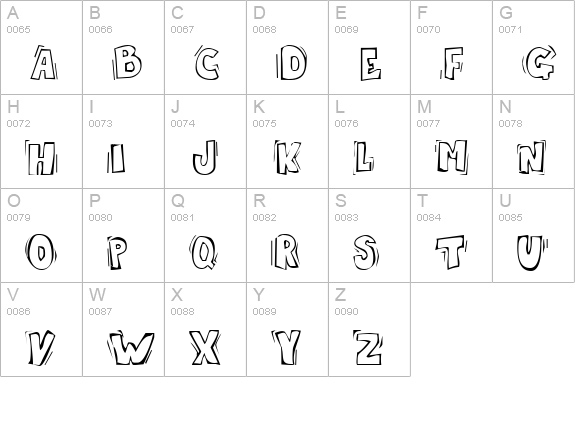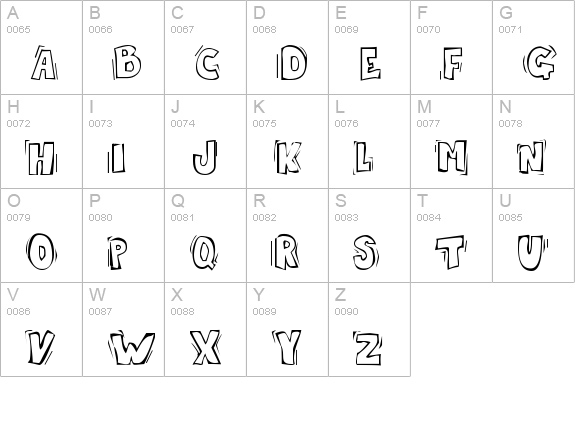
Skrotfont Font Details
Skrotfont is a magnificent font that exudes elegance and creativity. With its unique and eye-catching design, this font is perfect for any project that requires a touch of sophistication. From logos and branding to invitations and headlines, Skrotfont adds a distinct charm that captivates the audience. But what sets Skrotfont apart from other fonts is its availability. Yes, you heard it right! Skrotfont is absolutely free to download at FontsMarket.com. This means that you can enjoy the beauty and versatility of this font without spending a penny. Whether you are a professional designer or simply an enthusiast, Skrotfont is here to enhance your creative journey. The designers behind Skrotfont are committed to providing a font that not only looks stunning but also performs flawlessly. With its carefully crafted letterforms and smooth curves, Skrotfont ensures legibility and readability, even at smaller sizes. This makes it suitable for various mediums, including print, web, and mobile applications. Skrotfont is truly a game-changer in the world of typography. Its versatility allows it to be used in a multitude of design projects, from modern and minimalistic to bold and expressive. The wide range of weights and styles available in Skrotfont offers endless possibilities for creating unique and memorable designs. So why wait? Embrace the beauty of Skrotfont today and let your creativity soar. Visit FontsMarket.com to download this incredible font for free and embark on a journey of design excellence. Whether you're a seasoned professional or a budding artist, Skrotfont will undoubtedly elevate your creations to new heights. Don't miss out on this opportunity to enhance your design arsenal with a font that is both visually captivating and freely available. Get Skrotfont now and let your imagination run wild!